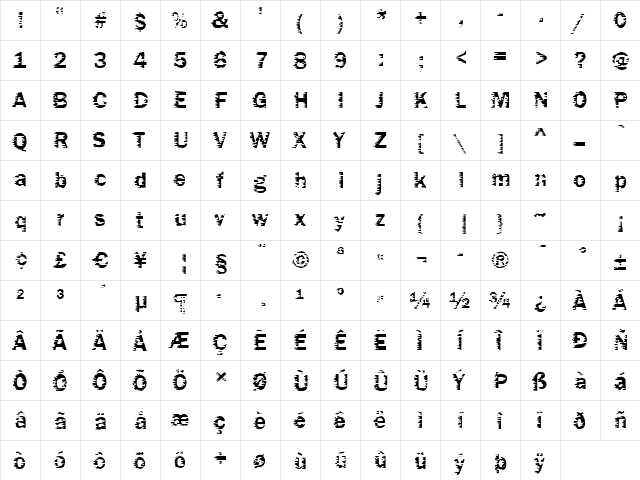
Funky01 Bold
Design Context for Funky01 Typeface
Funky01 trades formality for fun, with bouncy, characterful letterforms that bring warmth and energy to any project.
Font Pairing: Pairs well with a rounded or humanist sans for body copy, maintaining the friendly tone without relying on Funky01 to carry extended reading.
Pro Tip: Avoid using Funky01 for long passages of text — it works best for headlines, labels, and short calls to action.